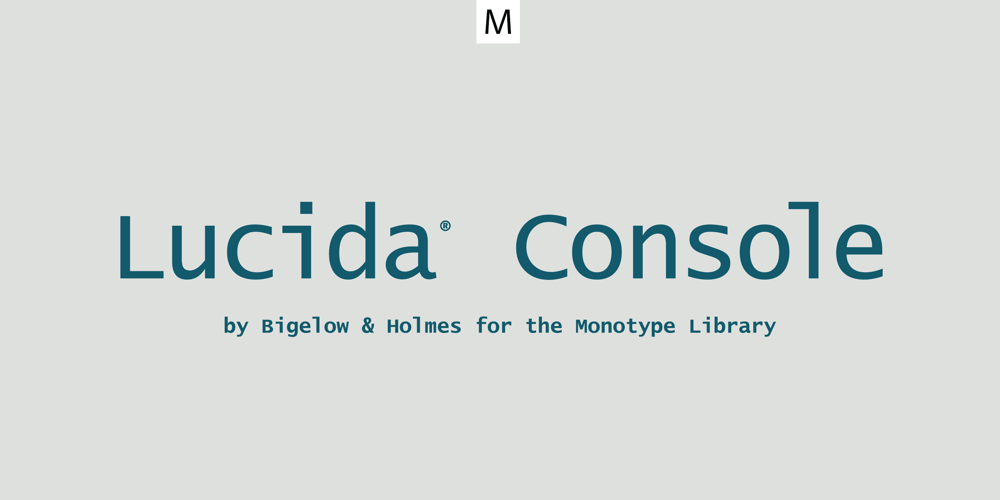
Lucida Console
Lucida Console font
Lucida Console Font Family was designed by Charles Bigelow, Kris Holmes and published by Monotype. Lucida Console contains 4 styles and family package options. Kris Holmes and Charles Bigelow designed Lucida Console in 1993 for on-screen console and terminal emulation windows that needed monospaced fonts with sturdy letter shapes. Lucida Console has simple, clear, robust letterforms, a big x-height, and economical fitting. It looks large on-screen and in print but takes up less space than traditional typewriter and monospaced fonts. Its short capitals were originally technical adaptations to user interfaces on computers, but its compact look and active italic appeals to typographers and designers for a wide variety of uses, including in games and digital devices. The Lucida Console family has 675 glyphs in each font, and supports the WGL and W1G character sets. This includes the Extended Latin, Greek, and Cyrillic alphabets along with a generous set of symbols, box-draw, and graphical characters.